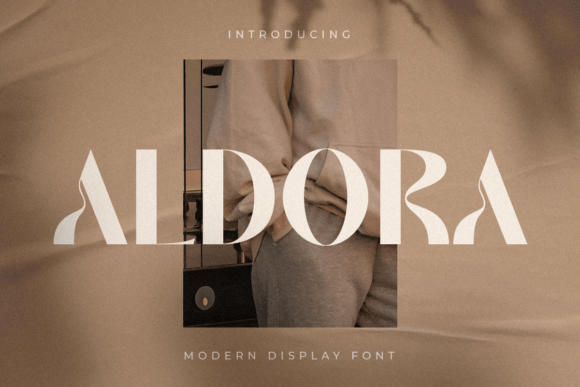
The Designer’s Delight: Unleashing the Power of Aldora Font
I’ll never forget the time I was working on a project for a high-end fashion brand, and I just couldn’t seem to find the right font to match their luxurious vibe. The client was specific about wanting something bold, yet elegant, and I was on the verge of pulling my hair out. That’s when I stumbled upon Aldora Font, and let me tell you, it was love at first sight! 💕
With its bold and assertive serif design, Aldora instantly elevated my project and exceeded the client’s expectations. From that day on, I made sure to have it in my font library, and I’ve been raving about it to fellow designers ever since. In this article, I’ll share with you what makes Aldora Font so special, its features, and how to make the most of it in your designs.
An Honest Review of Aldora Font
What I Love About Aldora Font ✨
- 💪 **Bold and Assertive**: Aldora Font makes a statement with its confident and strong serif design, perfect for headlines, titles, and emphasis.
- 📚 **Versatile**: Whether you’re working on a fashion project, a tech startup, or a non-profit organization, Aldora Font adapts seamlessly to any topic or theme.
- 🎨 **Highly Legible**: The font’s clear and distinct letterforms ensure that your message gets across, even at smaller font sizes.
- 👍 **Easy to Pair**: Aldora Font pairs well with a variety of font styles, making it a great addition to your font library.
- ⚠️ **Limited Use for Body Text**: While Aldora Font is amazing for headlines and titles, it might not be the best choice for body text due to its bold nature.
- 🤔 **Some Kerning Issues**: As with any font, you might encounter some kerning issues, especially when using it in combination with other fonts.
The Backstory of Aldora Font
Aldora Font was designed with the intention of creating a bold and assertive serif font that would make a statement in any design. The designer, inspired by classic serif fonts, aimed to create a font that would be both elegant and strong. With its unique letterforms and confident voice, Aldora Font has become a popular choice among designers and crafters.
Q: What is Aldora Font best used for?
A: Aldora Font is best used for headlines, titles, and emphasis, due to its bold and assertive nature.
Q: Can I use Aldora Font for body text?
A: While Aldora Font can be used for body text, it might not be the best choice due to its bold nature. It’s recommended to use it for headlines and titles, and pair it with a complementary font for body text.